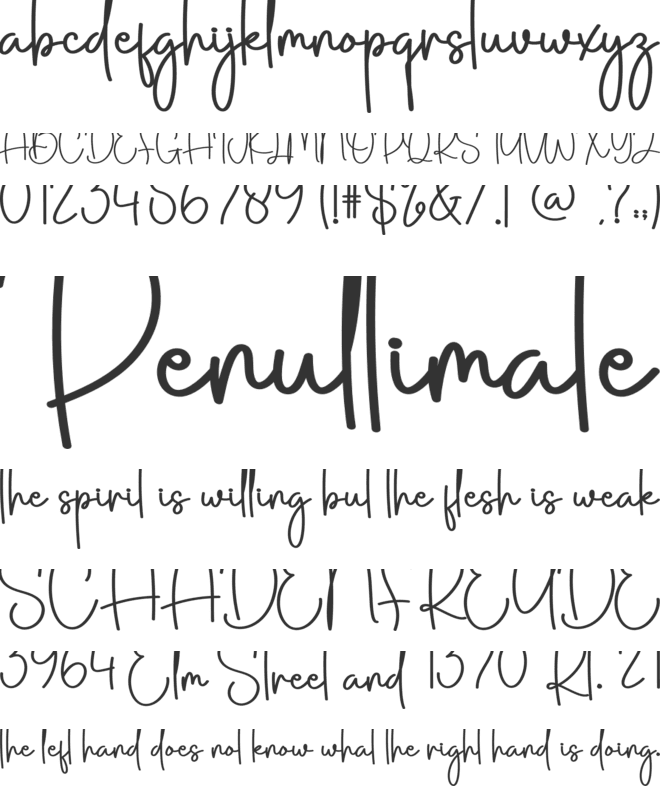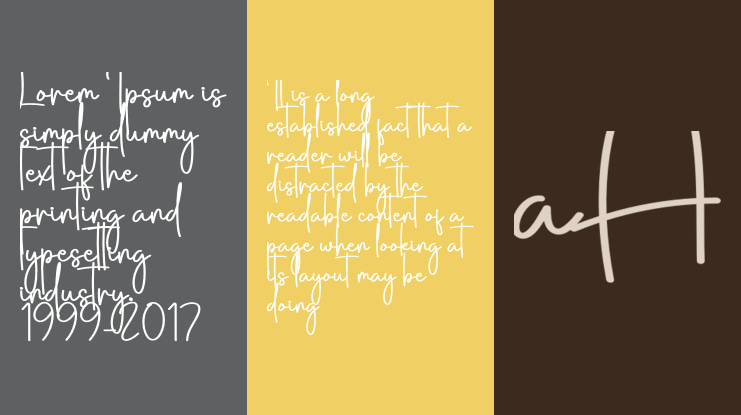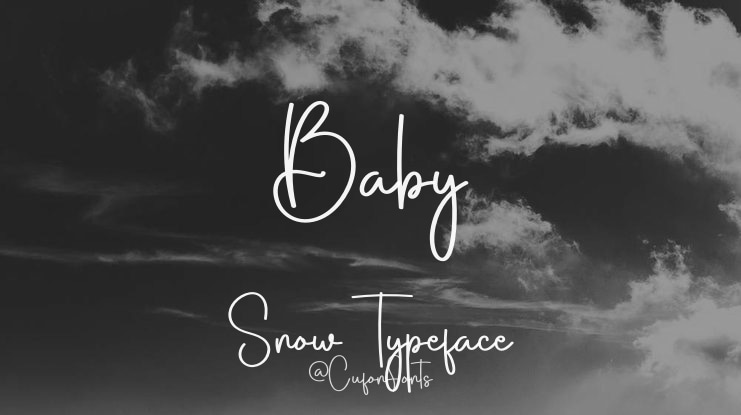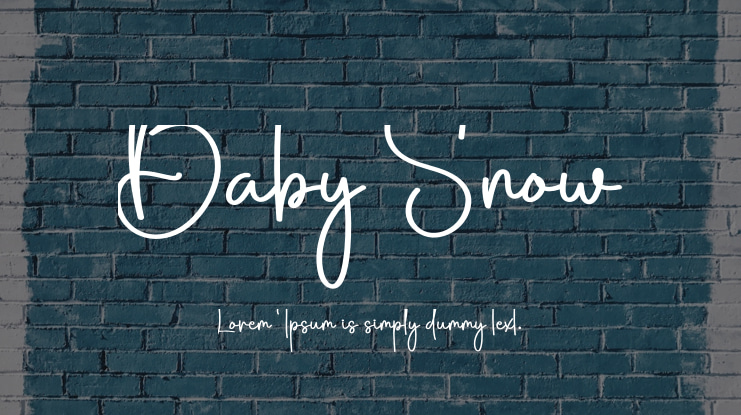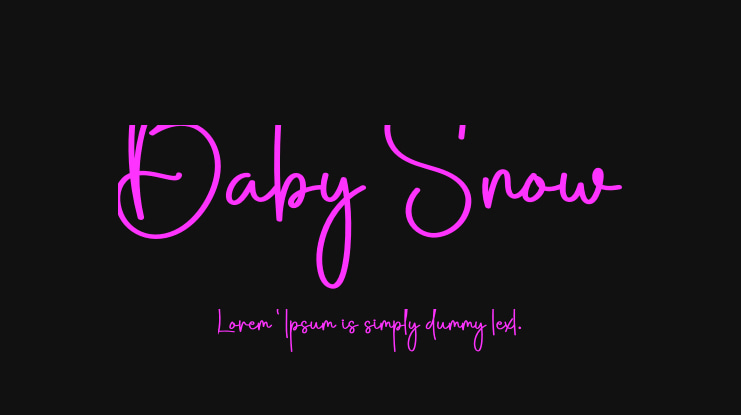
- Wall displays - Wedding invitations - Social media post logos - Advertisements - Product packaging and designs - Labels - Photography watermarks - Stationery - Any project requiring personalized handwriting touch